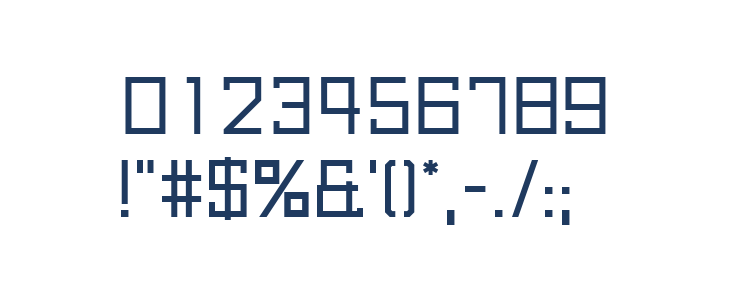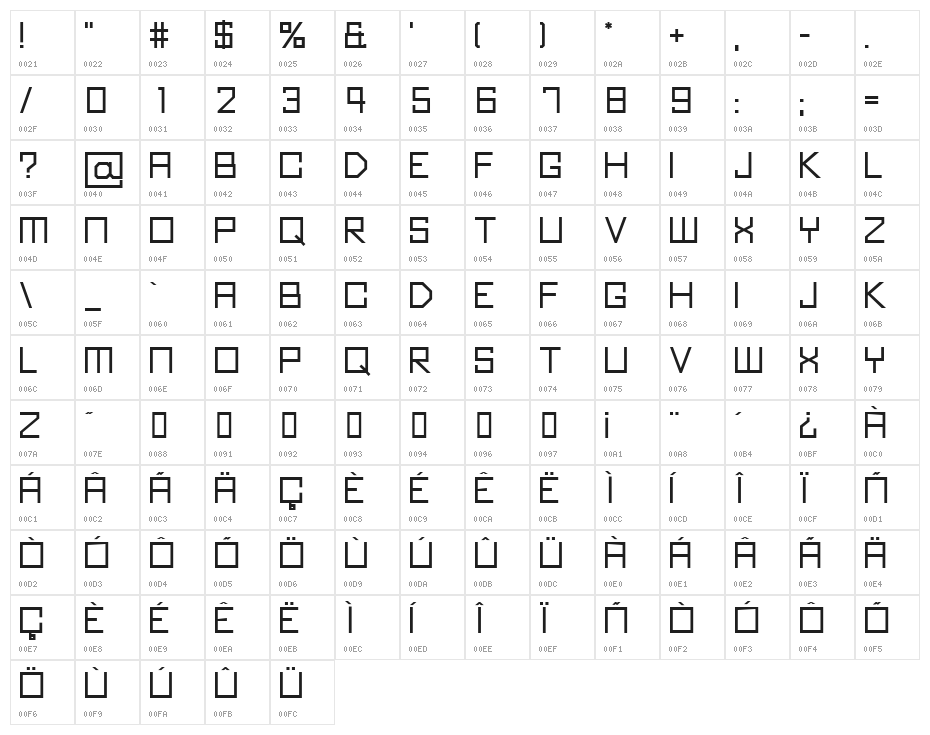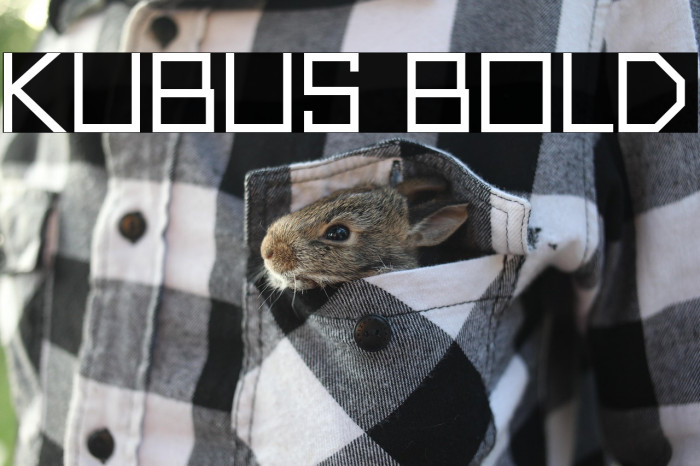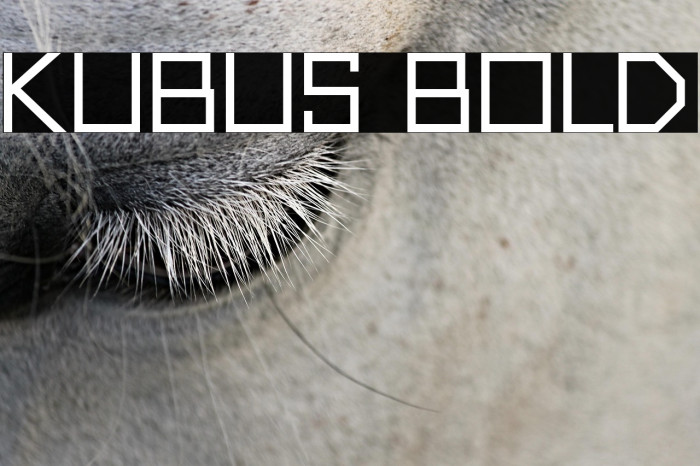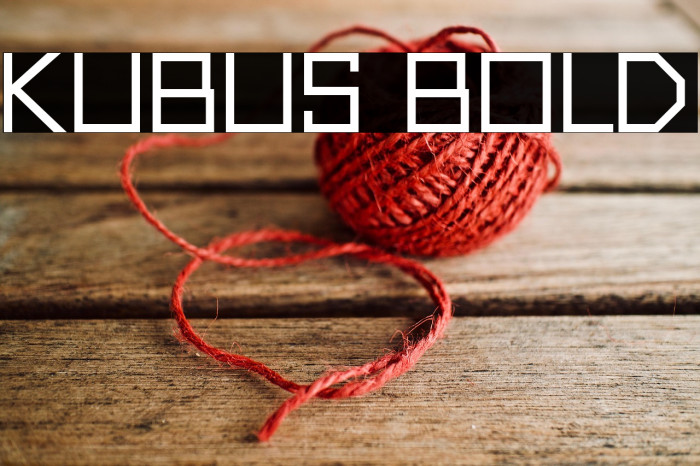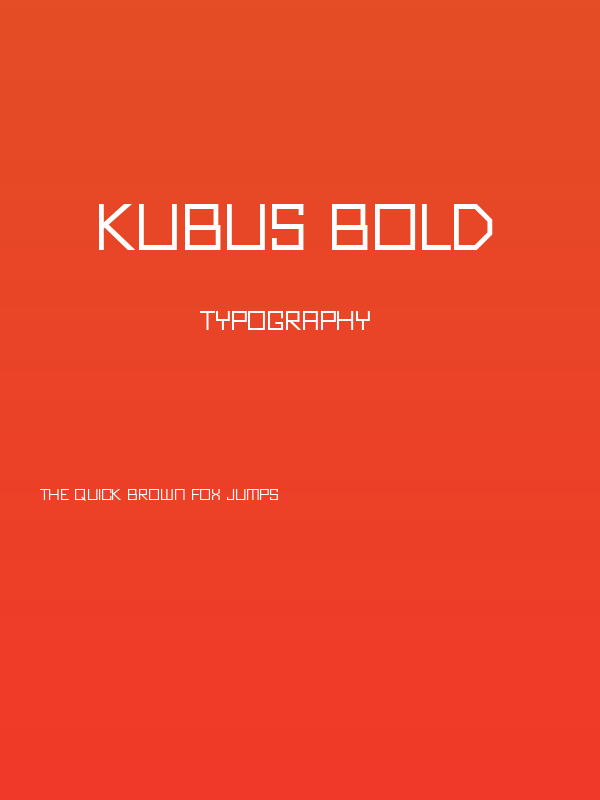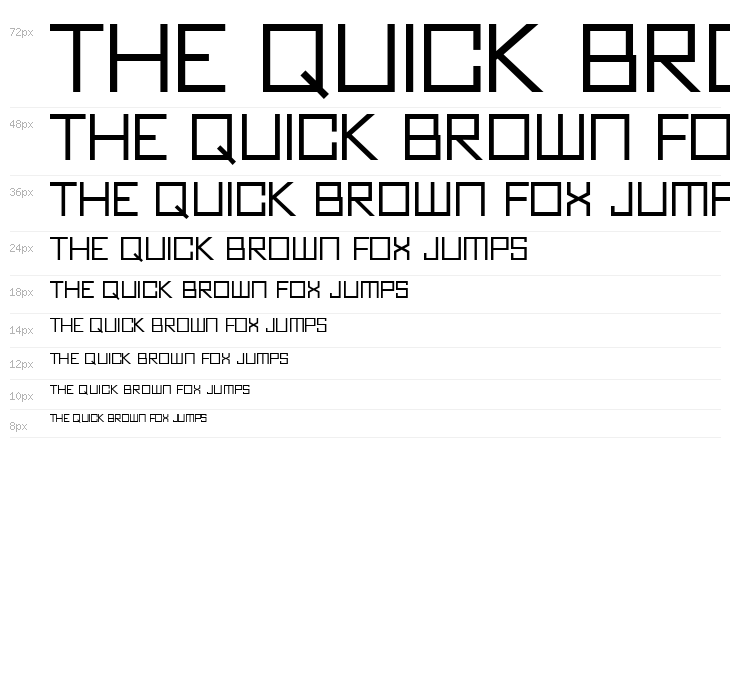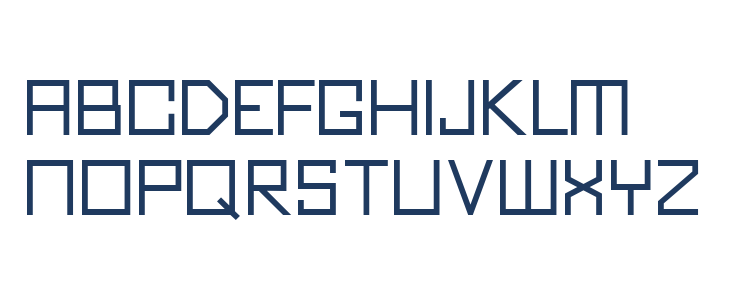
Kubus Bold Font
Kubus Bold Description
This font features a geometric and modern design with a strong emphasis on straight lines and sharp angles. The characters are constructed with a consistent stroke width, giving it a bold and assertive appearance. The uppercase letters are particularly striking, with unique angular elements that add a futuristic touch. The numerals and special characters maintain the same geometric style, ensuring uniformity across all glyphs. This font is highly legible and commands attention, making it suitable for impactful design projects.
| Proposed Projects | Ideal for branding, posters, headlines, and any design requiring a modern and bold aesthetic. |